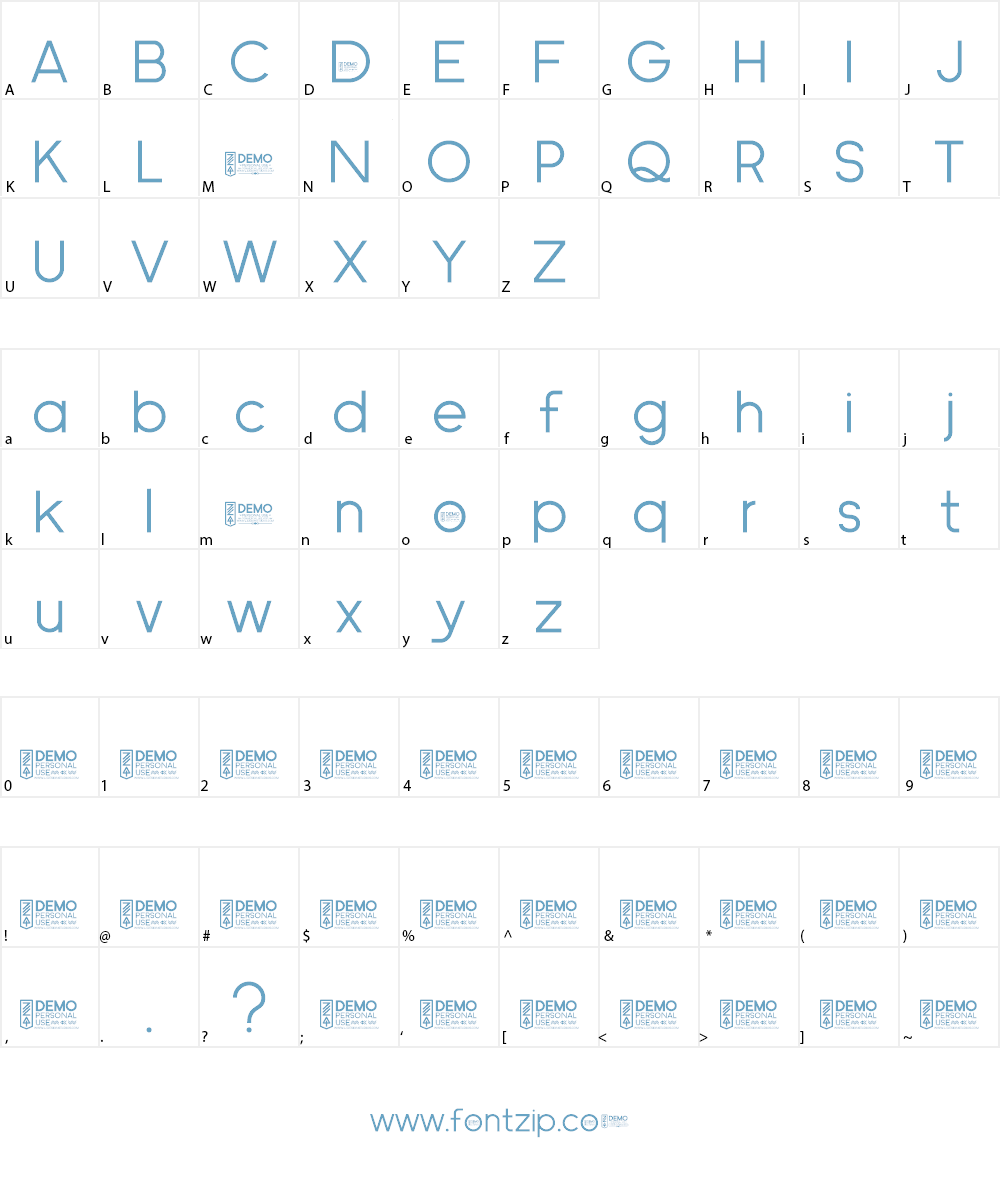
ZILAP UNIVERSAL FAMILY FONT is a simple and modern source, designed with great readability to be used in different graphic scenarios, it has 12 very defined versions, its geometric concept makes it an elite source, which would fit perfectly in all types of national or global projects.
ZILAP UNIVERSAL FAMILIA TIPOGRÁFICA es una fuente sencilla y moderna, diseñada con gran legibilidad para ser usada en diferentes escenarios gráficos, tiene 12 versiones muy definidas, su concepto geométrico la convierte en una fuente élite, que encajara perfecto en todo tipo de proyecto nacional o global.
ZILAP UNIVERSAL FAMILY FONT is a simple and modern source, designed with great readability to be used in different graphic scenarios, it has 12 very defined versions, its geometric concept makes it an elite source, which would fit perfectly in all types of national or global projects.
ZILAP UNIVERSAL FAMILIA TIPOGRÁFICA es una fuente sencilla y moderna, diseñada con gran legibilidad para ser usada en diferentes escenarios gráficos, tiene 12 versiones muy definidas, su concepto geométrico la convierte en una fuente élite, que encajara perfecto en todo tipo de proyecto nacional o global.